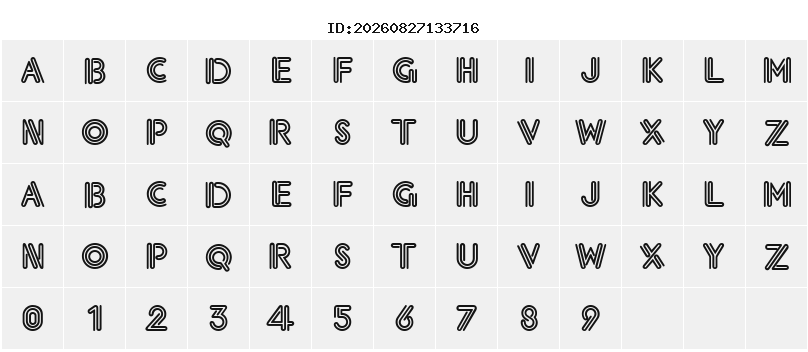
About 152-CAI978.ttf
152-CAI978.ttf is a modern, elegant sans-serif font designed for ultimate readability and visual harmony. Perfect for branding, headlines, web design, and print materials.